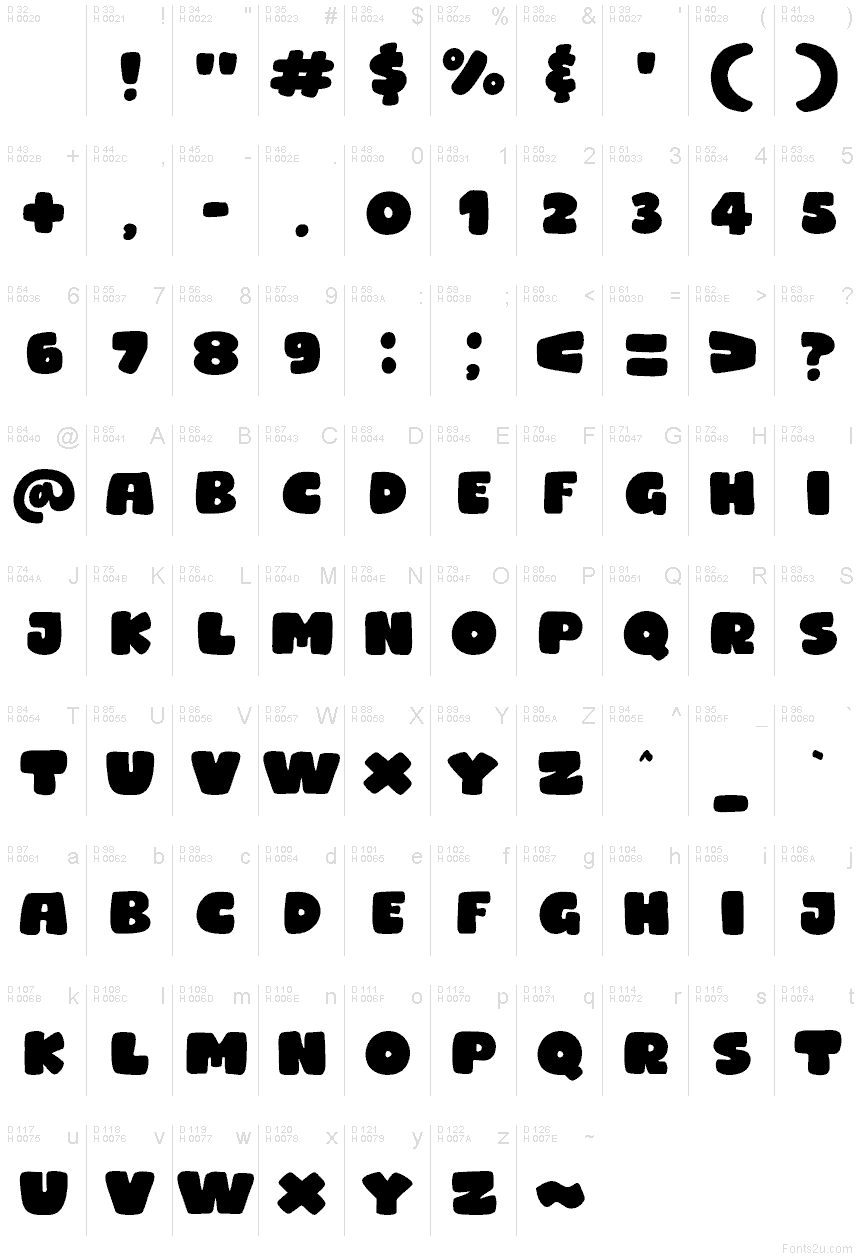
Magic Oval font by MJType is a free cartoon display typeface with soft, pillowy letters that look almost squeezable. Each bold, rounded shape feels hand-cut and bouncy, with tight spacing that turns words into chunky, bubbly blobs of ink. It has a friendly, almost marshmallow-like weight that instantly reads as playful and lighthearted, even at a glance.
Using Magic Oval, headlines and logos snap to attention on kids’ book covers, birthday invitations, toy packaging, game titles, YouTube thumbnails, and playful branding. This free font shines when set large and bold, where its thick forms can really puff out and breathe. For a clean, readable combo, pair Magic Oval with a simple geometric sans for smaller text or taglines.